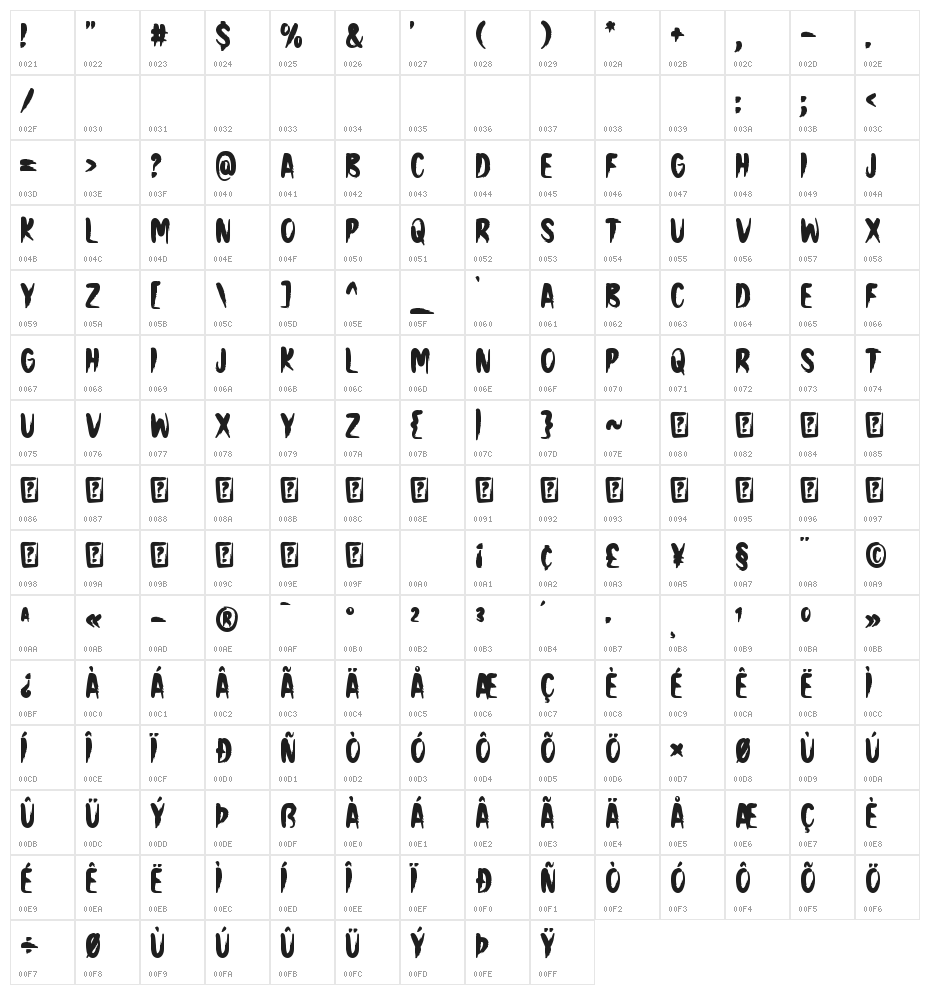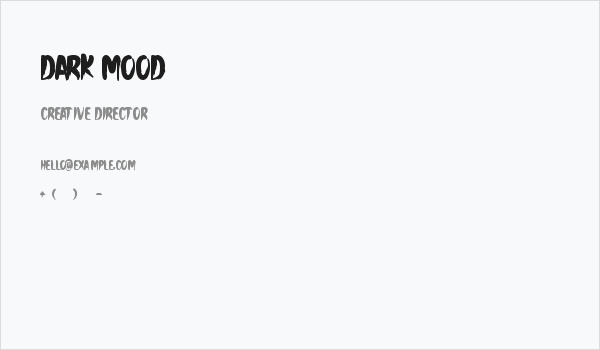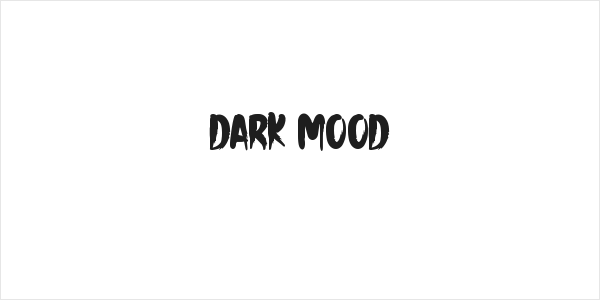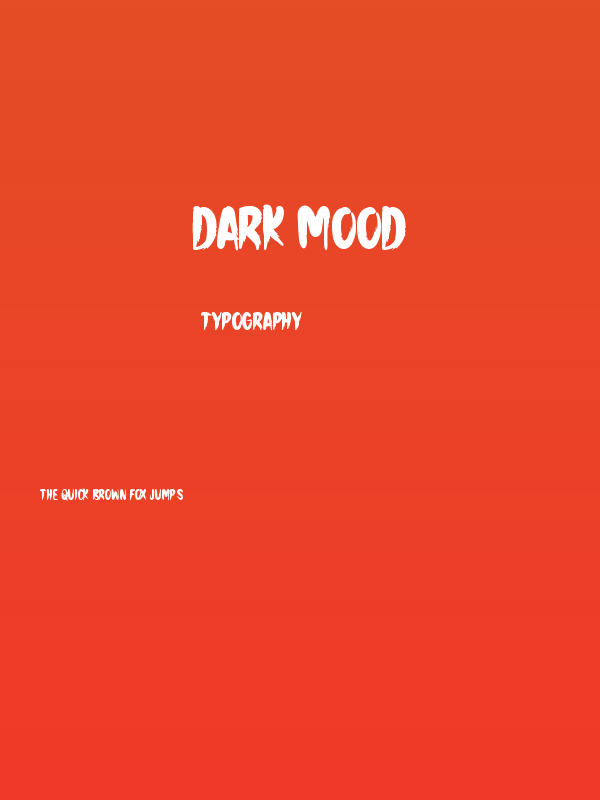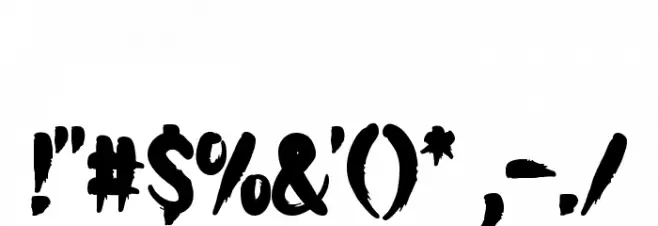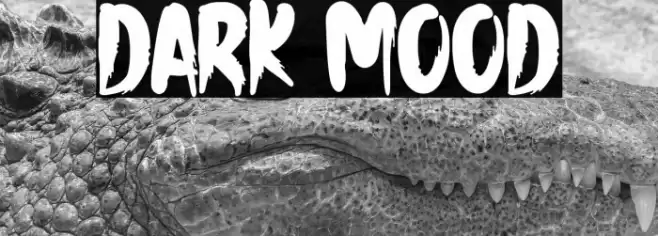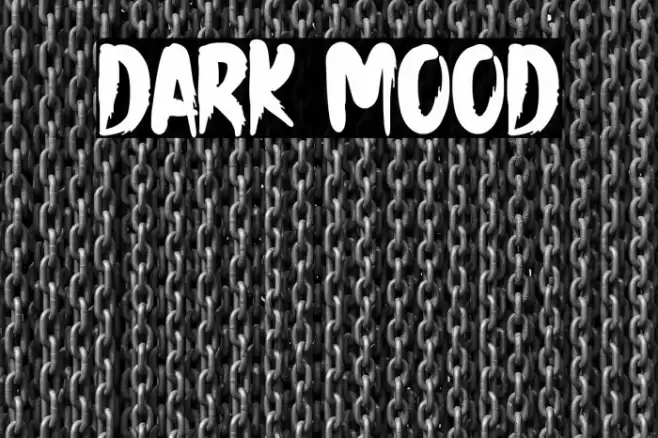
Dark Mood Font
Dark Mood Description
This font features a bold and expressive style with a brush-like texture, giving it a dynamic and energetic appearance. The strokes are thick and uneven, creating a sense of movement and spontaneity. Each character has a unique, hand-painted look, with irregular edges and varying stroke widths that add to its artistic flair. The font's overall aesthetic is bold and impactful, making it suitable for designs that require a strong visual presence. Its distinctive style is reminiscent of street art or graffiti, making it ideal for projects that aim to convey a sense of rebellion or creativity.
| Overall Style | Modern, Artistic |
| Proposed Projects | Ideal for posters, album covers, streetwear branding, and creative advertising campaigns. |